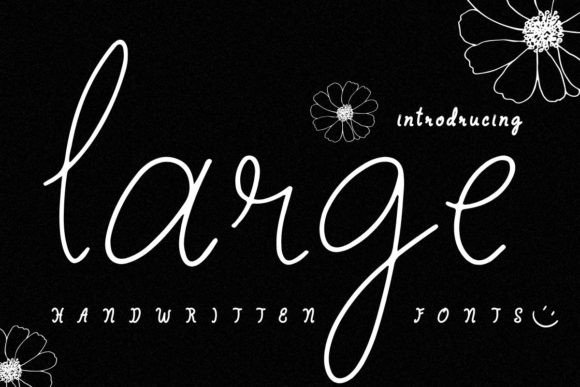
Enter the world of Large Font, a whimsical and captivating creation from the artistry of TONGMON DRAW. This script font captivates with its lively strokes, bringing a playful touch to your designs. Each character dances across the page, reflecting a sense of childlike wonder and carefree spirit.
Unleash your creativity with Large Font, the perfect font for adding a touch of charm and whimsy to your projects. Create posters that spark imagination, design children's books that come alive, or craft stickers that bring a smile to faces. With its delightful handwritten style, Large Font is a versatile tool that adds personality to any project.
Dive into the world of Large Font and let your designs take flight. The possibilities are endless with this enchanting font.
- Handwritten style exudes playfulness and charm
- Perfect for posters, children-themed designs, stickers, and more
- Fluid and graceful letterforms add a touch of elegance
- Versatile font that can be used for a variety of projects
- Captivating and enchanting design that stands out
Unlock the magic of Large Font today and experience the joy of creating designs that captivate and inspire!